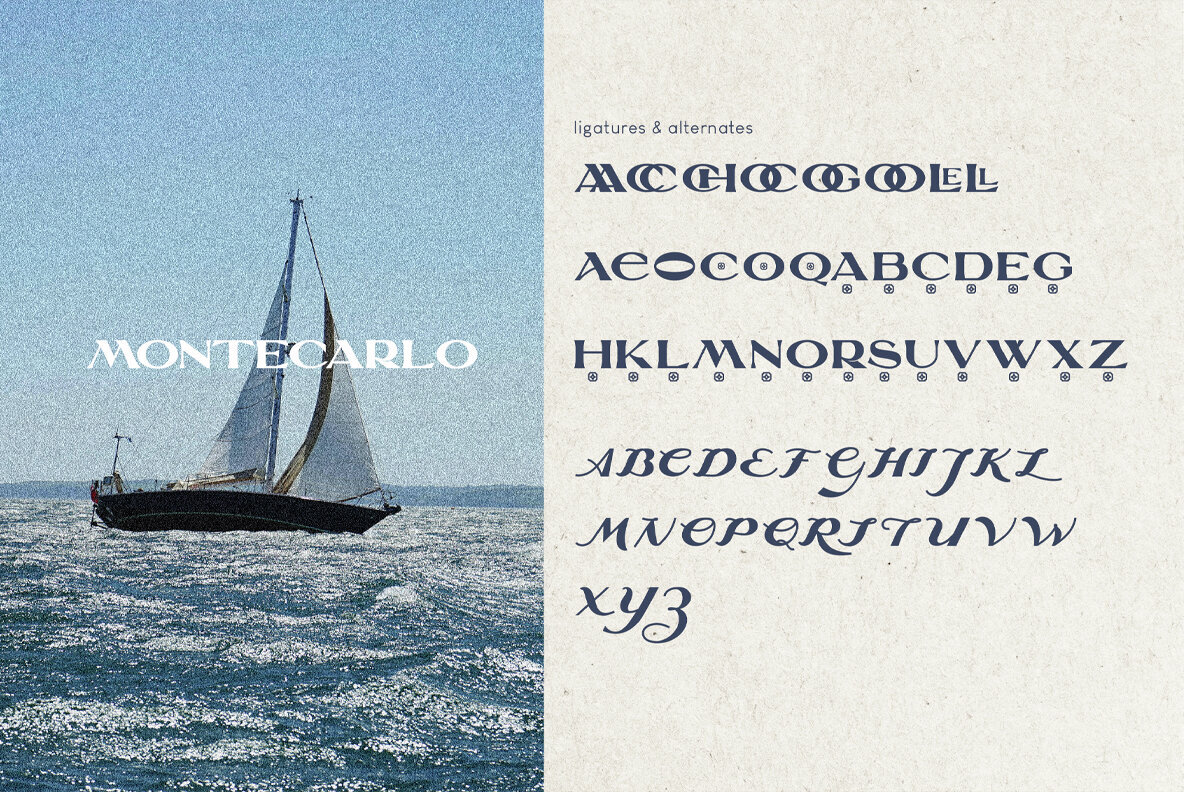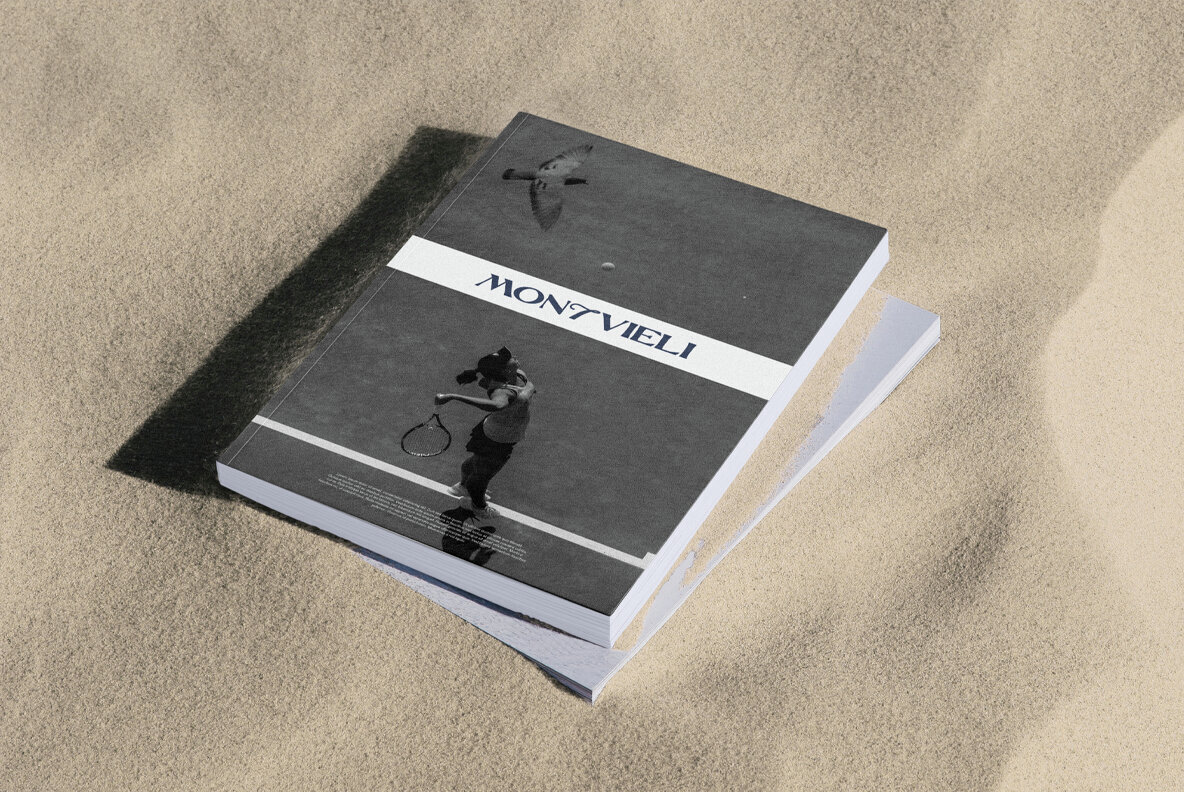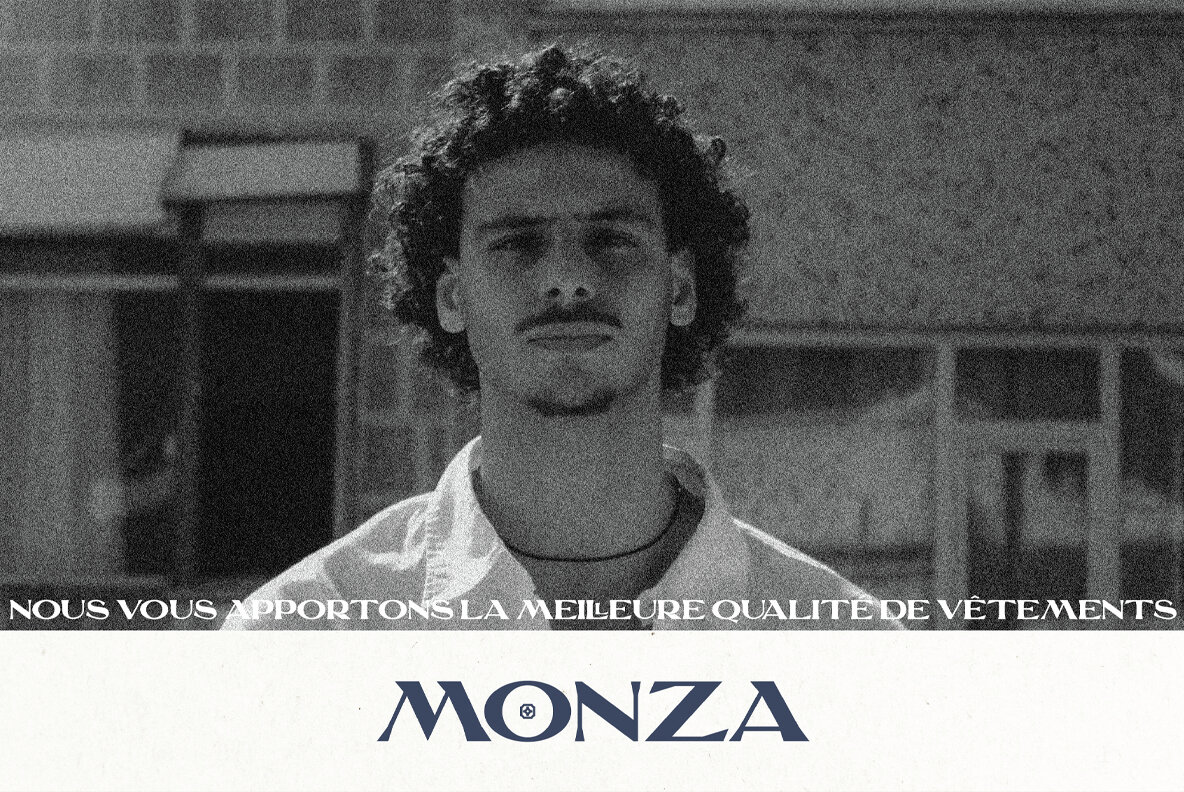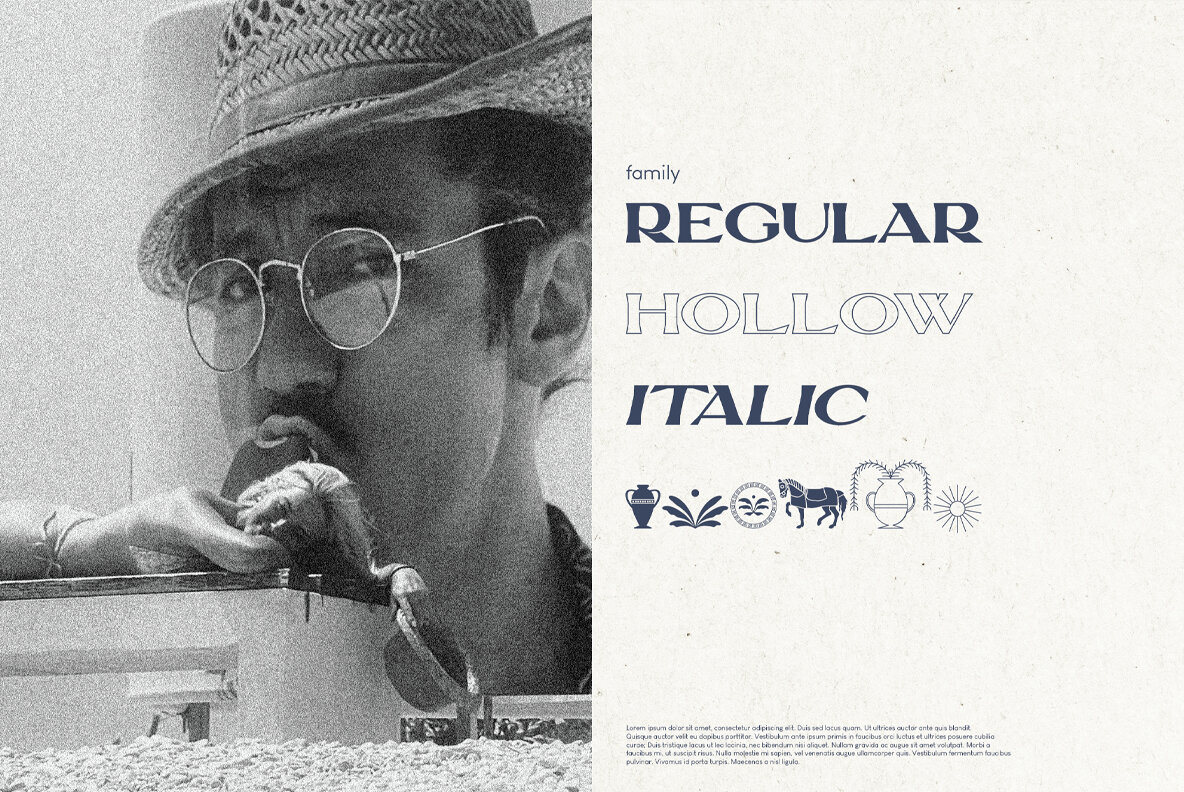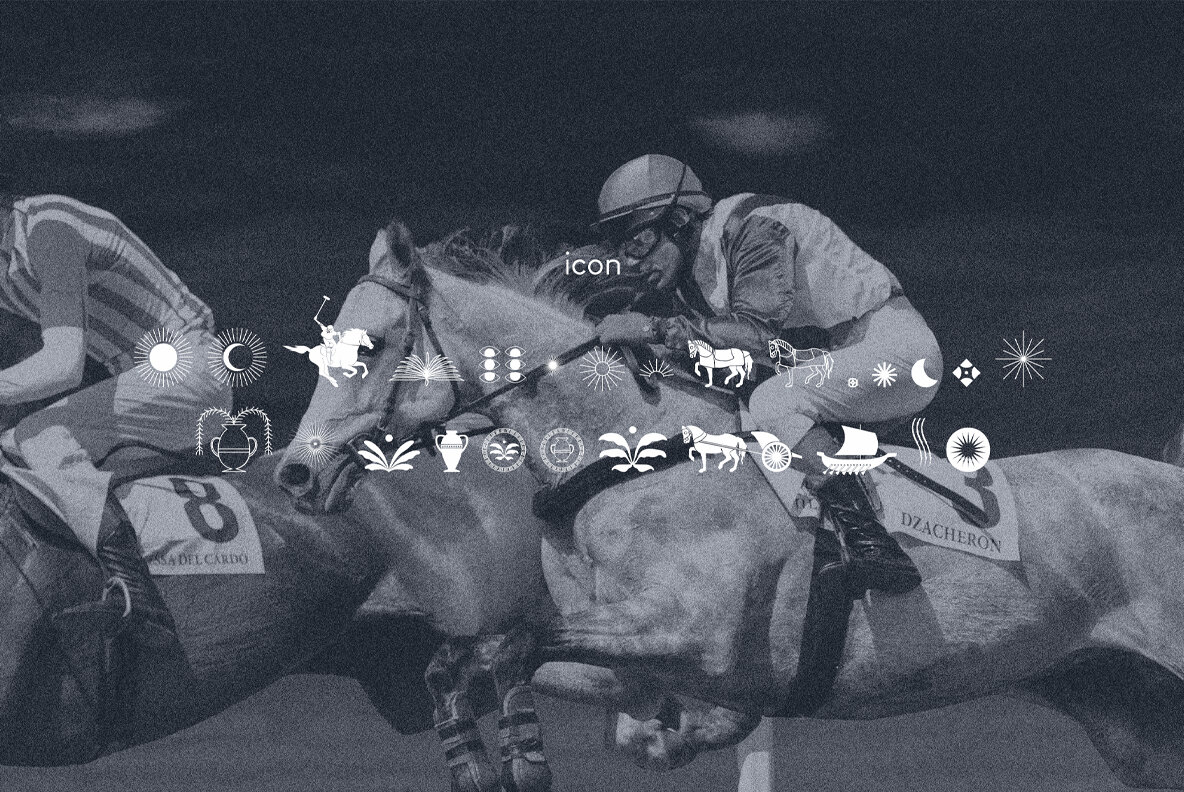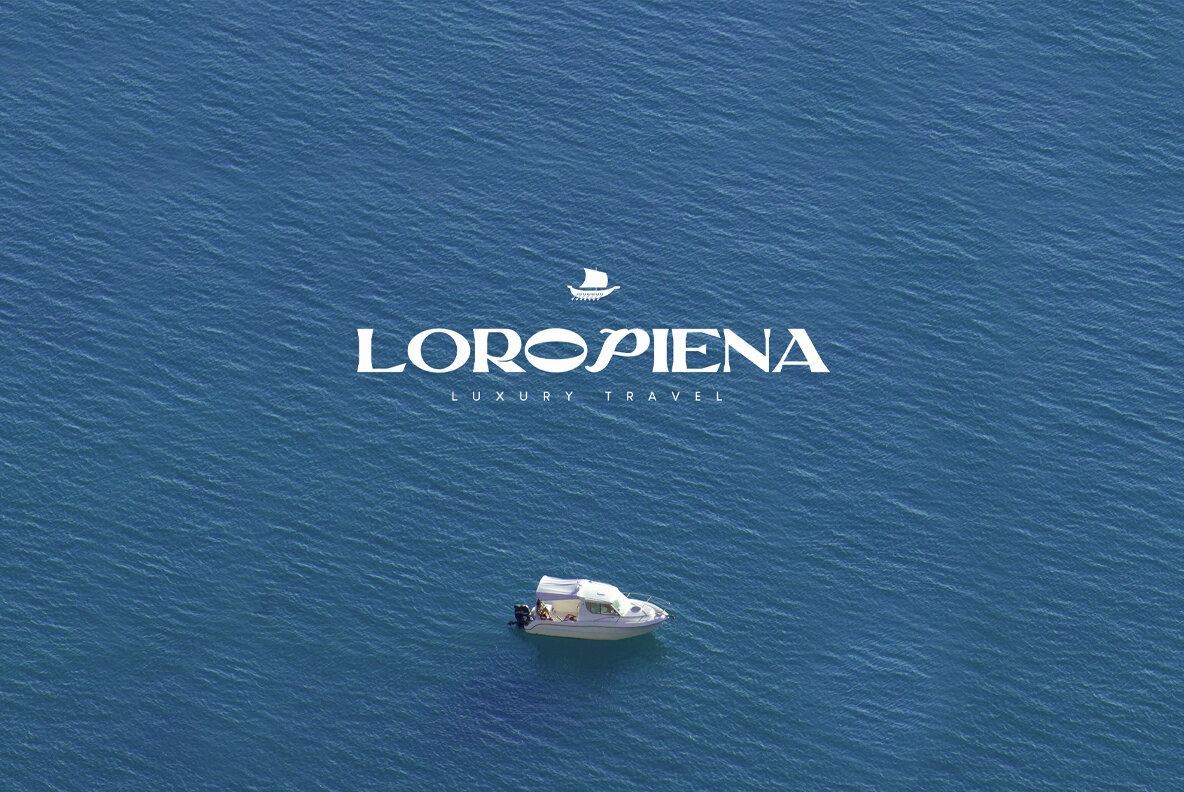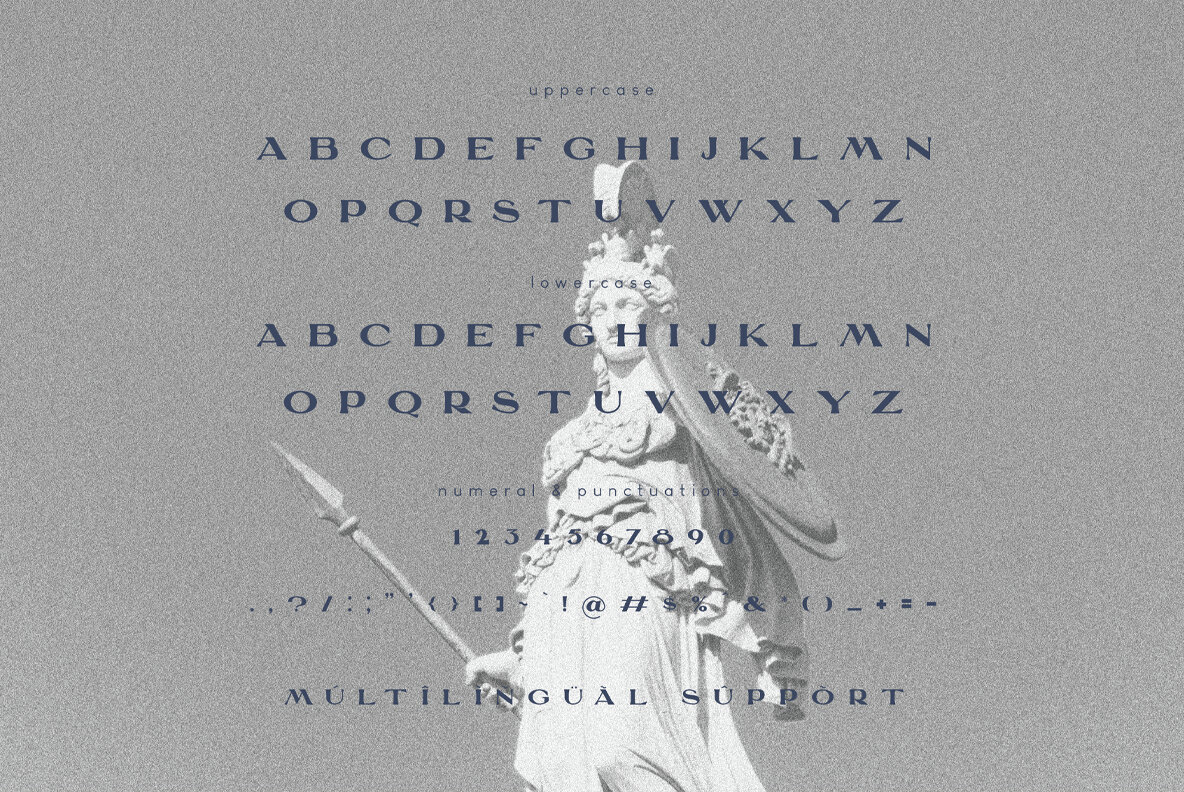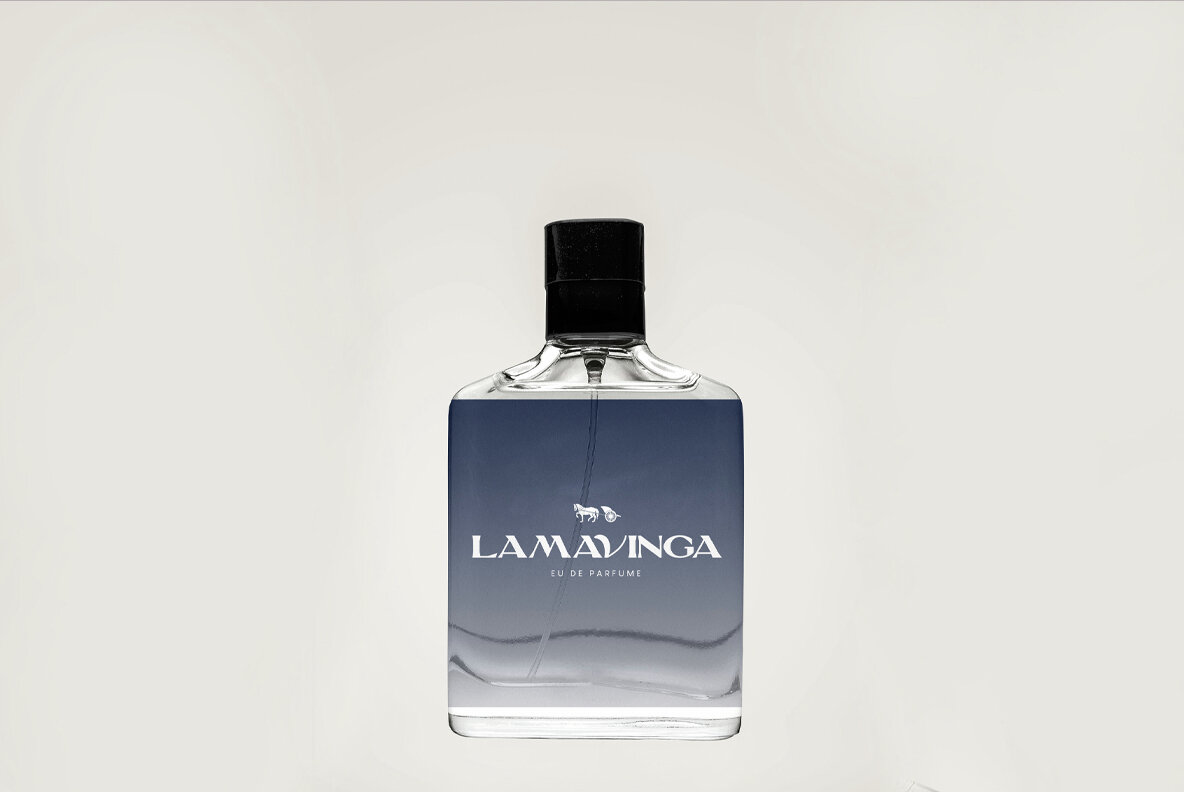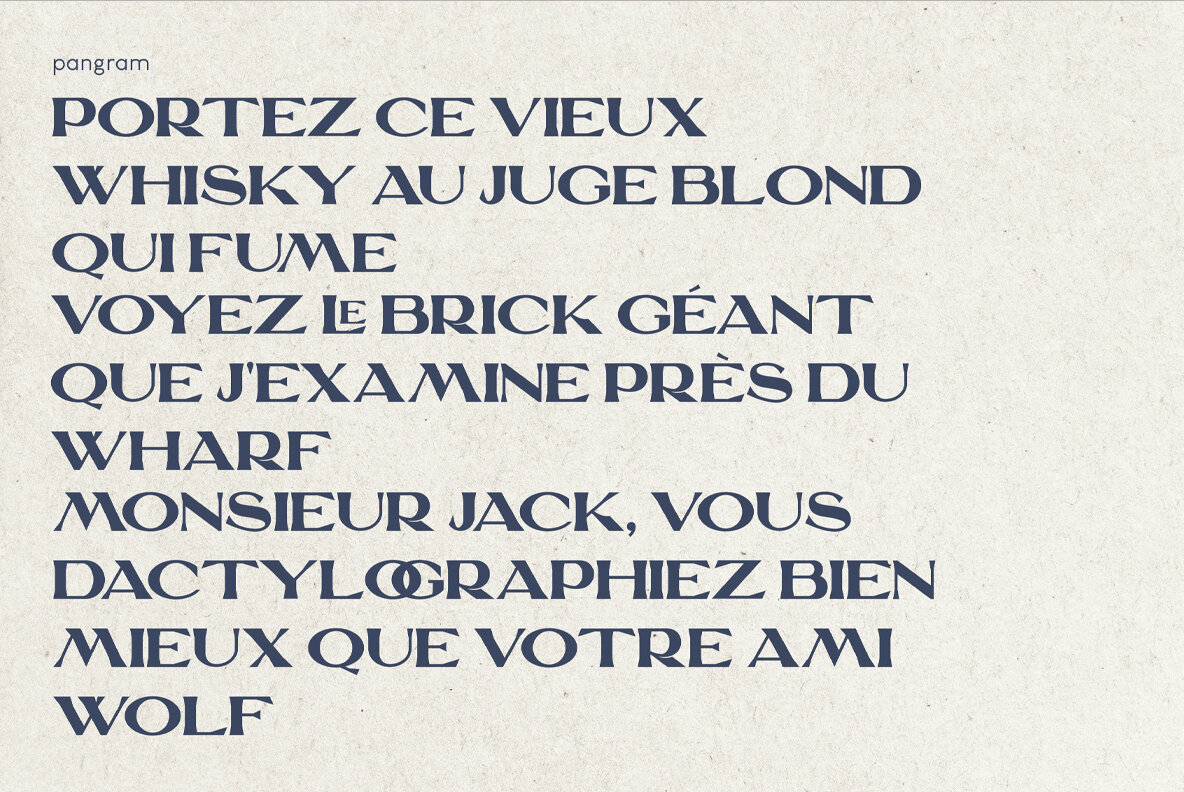
EL MOLACO Font
EL MOLACO, a bold serif display font, embodies the essence of luxury and old-money elegance. Perfect for impactful logos, sophisticated packaging, and high-end design projects, this typeface features robust, refined characters that seamlessly blend classic luxury with contemporary style. Ideal for fashion, luxury goods, or any upscale market, EL MOLACO conveys heritage, prestige, and exclusivity. It includes ligatures, alternates, regular, hollow, italic styles, icons, kerning, and multilingual support. Designed by Putu Dody Permana.